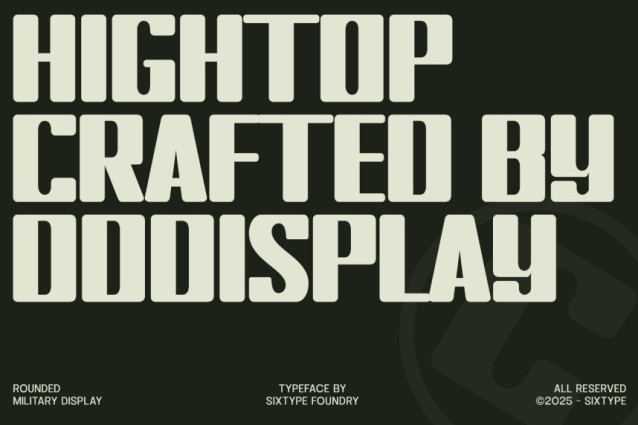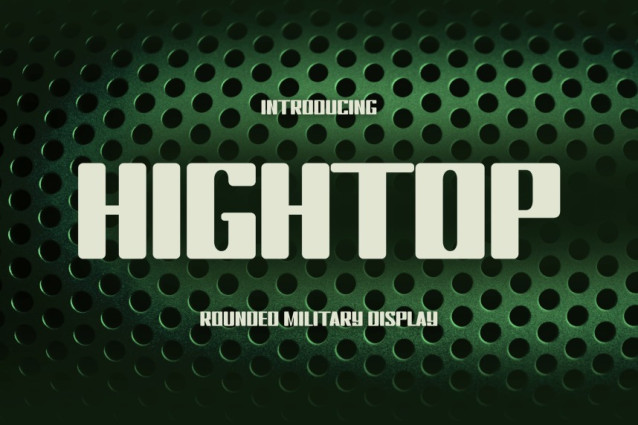
Hightop Font
Hightop Font is a rounded military display font inspired by tactical typography, industrial forms, and strong structural shapes. Built with bold strokes and softened corners, Hightop combines toughness with clarity—making it powerful without feeling rigid.
The letterforms are compact, solid, and highly legible, giving the font a commanding presence while maintaining a modern, approachable look. Hightop works especially well in both uppercase and lowercase, delivering consistency across bold headlines and statement designs.
This typeface is designed for projects that need to feel strong, disciplined, and confident, with a contemporary edge.